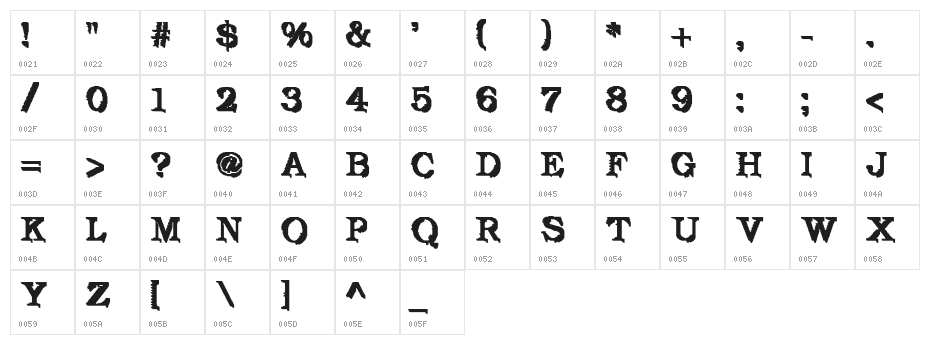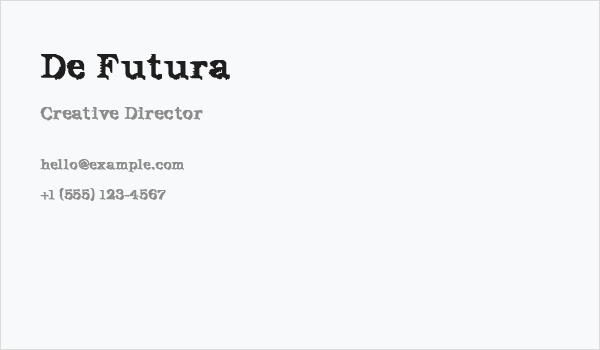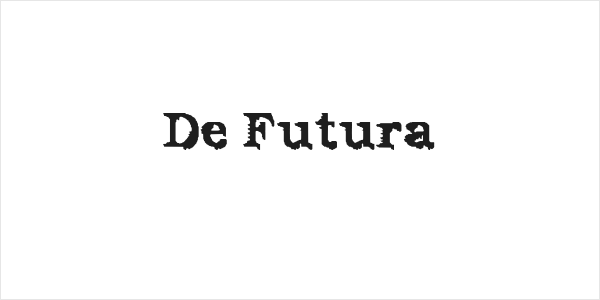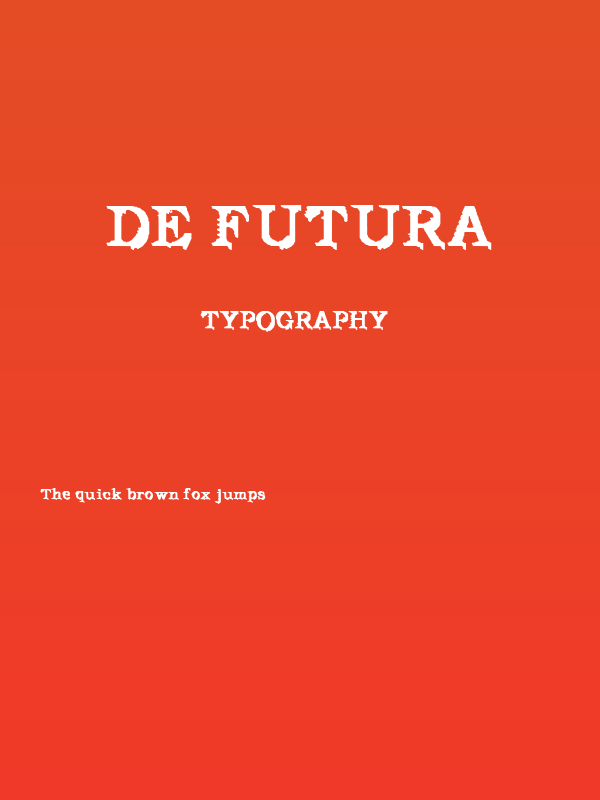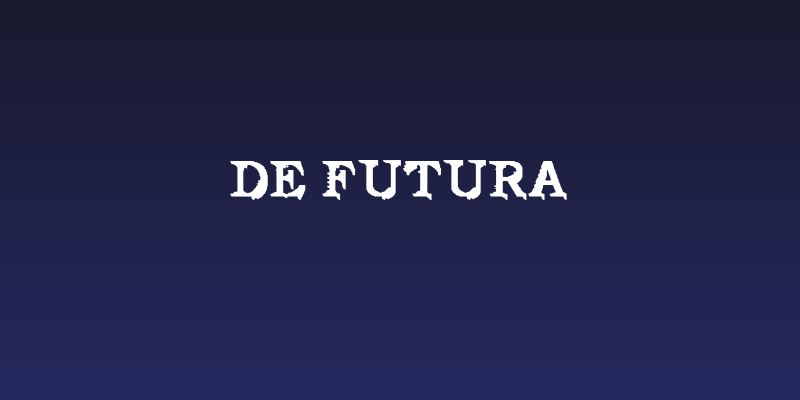
De Futura Font
De Futura Description
This font exhibits a bold and distressed style, characterized by its rough, textured edges that give it a vintage and rugged appearance. The uppercase and lowercase letters maintain a consistent height, contributing to a uniform look, while the numbers and special characters share the same distressed aesthetic. The font's design is reminiscent of old typewriter or newspaper print, with a unique charm that stands out due to its irregularities and imperfections. The bold strokes and uneven lines create a sense of movement and energy, making it suitable for projects that require a strong visual impact. Its distinctive style is both eye-catching and memorable, ideal for creative and artistic applications.